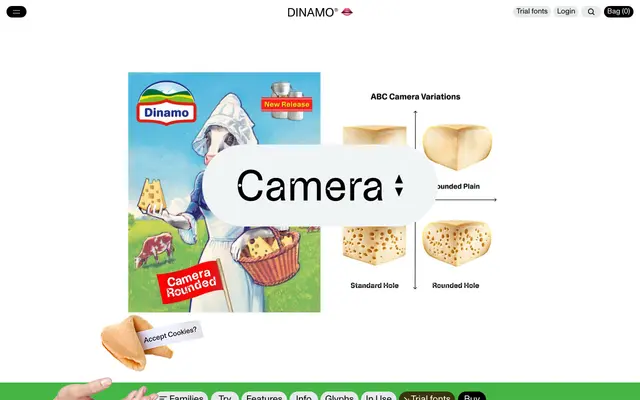
ABC Camera
A neutral grotesque that scales up 60s and 70s TV light traps as visible holes, with a Plain version and matching mono.
A grotesque by Johannes Breyer, Fabian Harb, Fabiola Mejia and Sascha Bente that turns the light traps once used to keep TV text readable into a feature, scaling them up into visible holes. A Plain cut without the holes is provided alongside, and both versions run across five weights with italics plus a monospaced sibling. Sits close to Helvetica in tone but with freer proportions and a narrower body.
Dinamo describes Camera as a reinterpretation of light traps used in 1960s and 1970s television to keep text readable through screen blur, scaled up as 'holes' and offered alongside a Plain version without them.